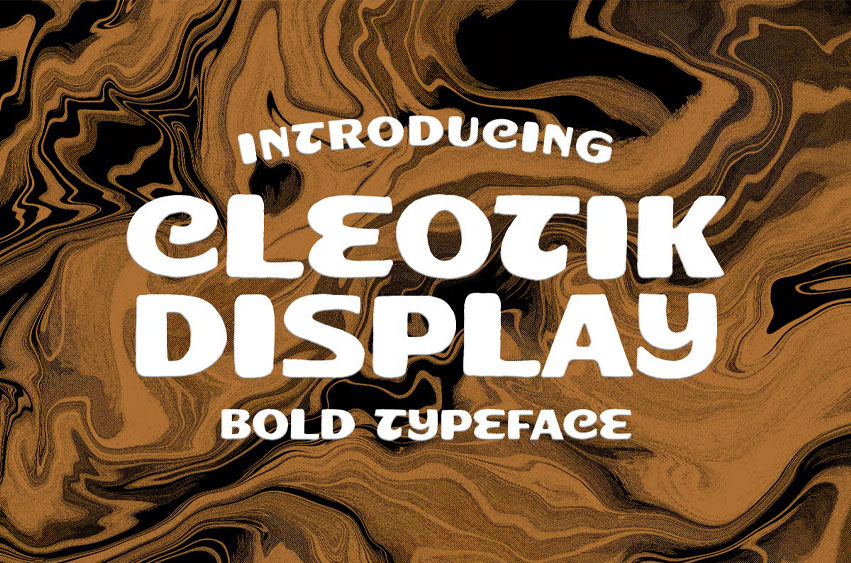
Cleotik Display Font
Cleotik Display Font is a Vintage Display Font with rough and organic shapes that make your design look like old letterpress and classic.
Good for label, logotype, vintage badges, headline and etc.